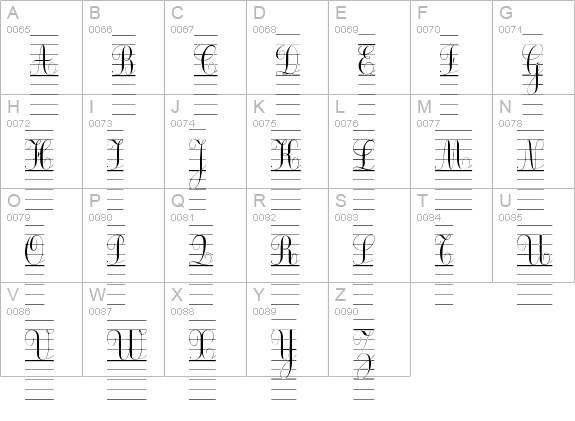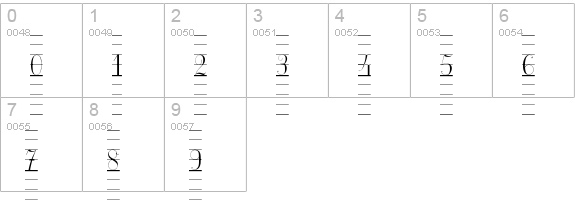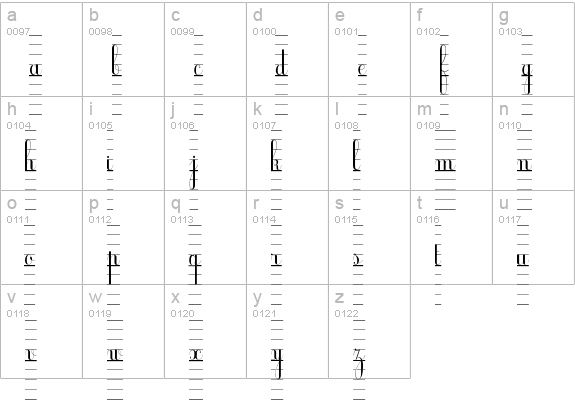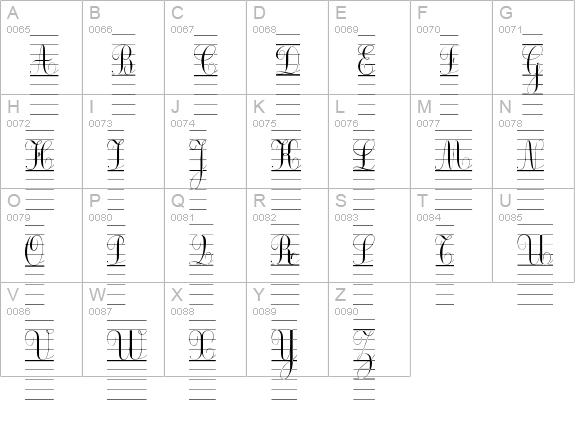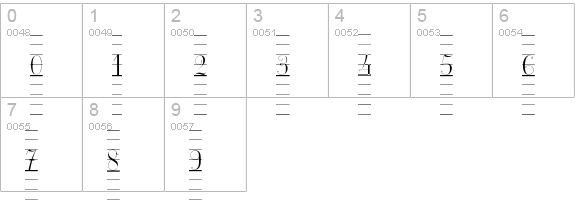
Ecolier_lignes_court Font Details
Ecolier_lignes_court font is a charming and whimsical typeface that evokes the nostalgia of handwritten notes and school days gone by. Its delicate strokes and playful curves bring a sense of joy and warmth to any design project. With its clean lines and clear legibility, Ecolier_lignes_court font is perfect for a wide range of applications, from children's books and educational materials to invitations and greeting cards. Its friendly and approachable style makes it ideal for conveying a sense of innocence and creativity. One of the best things about Ecolier_lignes_court font is that it is free! Available for download at FontsMarket.com, this delightful font can be easily accessed and enjoyed by anyone looking to add a touch of whimsy to their designs. Whether you're a professional graphic designer or a hobbyist, this font offers a great opportunity to enhance your projects without breaking the bank. So why wait? Go ahead and download Ecolier_lignes_court font today from FontsMarket.com and let your imagination run wild. Whether you're designing a poster, creating a logo, or crafting a personalized invitation, this font is sure to bring a smile to your face and captivate your audience. Embrace the freedom of creativity with Ecolier_lignes_court font and unlock endless possibilities for your design projects.